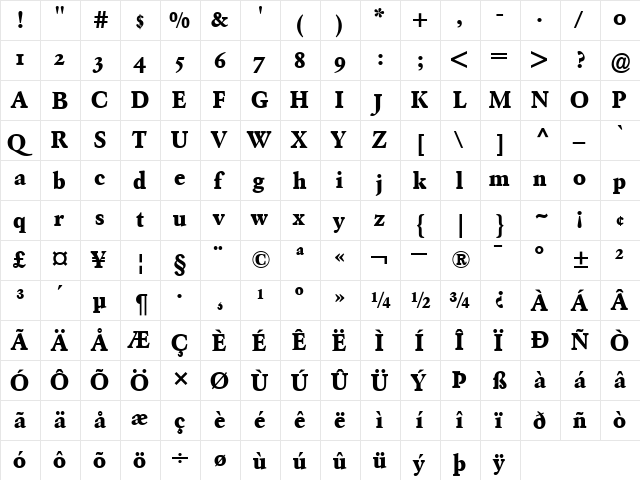
GaramondBEOldstyleFigures Bold Font Preview
GaramondBEOldstyleFigures Bold
Design Context for GaramondBEOldstyleFigures Typeface
GaramondBEOldstyleFigures carries the refined structure of traditional serif typography, with bracketed terminals and considered proportions that communicate credibility and craft. Its bold stroke weight gives it real presence on the page.